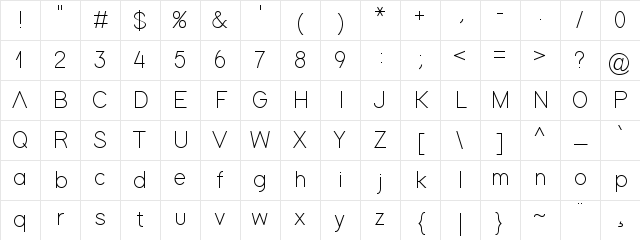
Adam Medium Medium
Design Context for Adam Medium
Adam Medium is a composed and adaptable typeface that performs quietly and consistently across a wide range of design contexts.